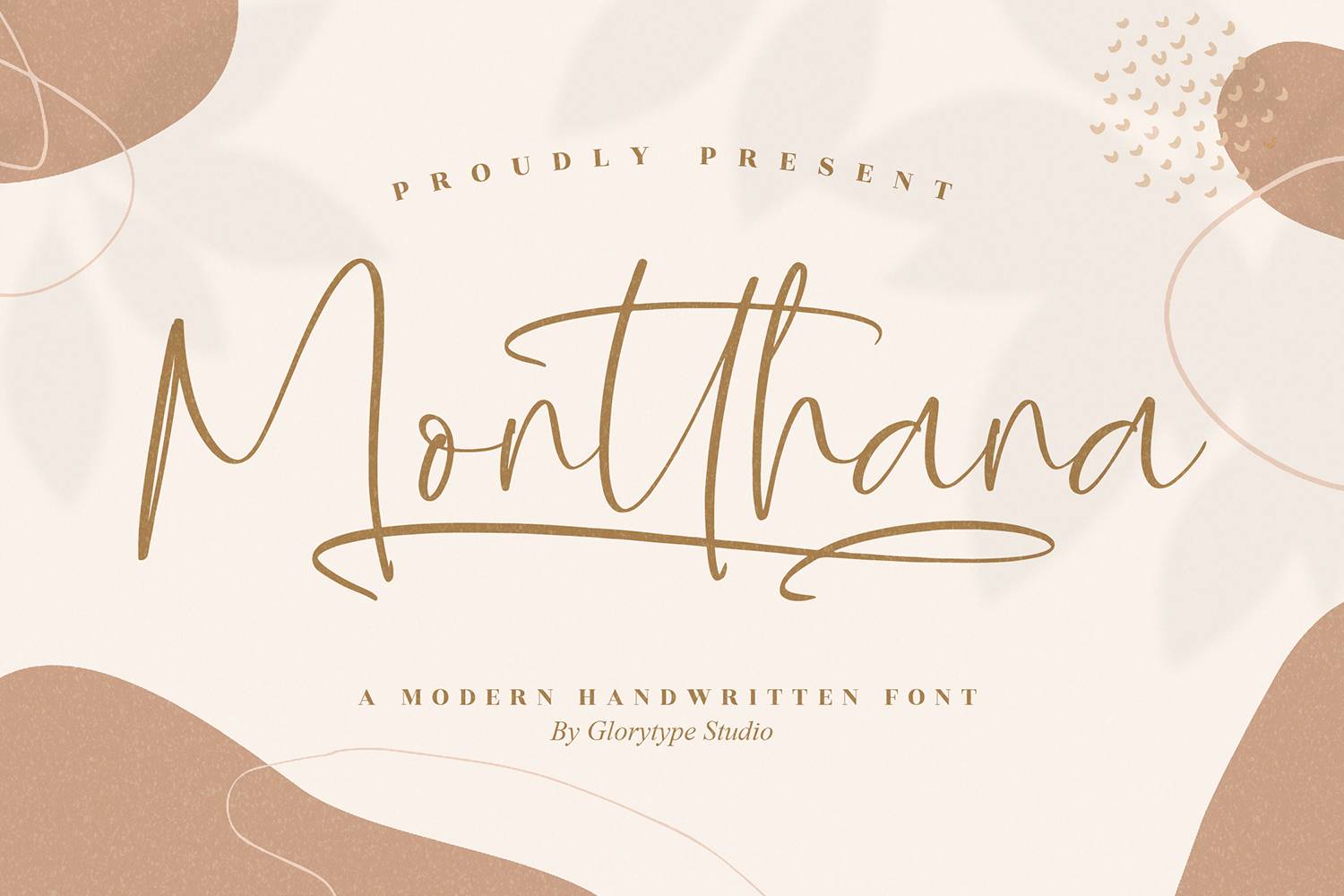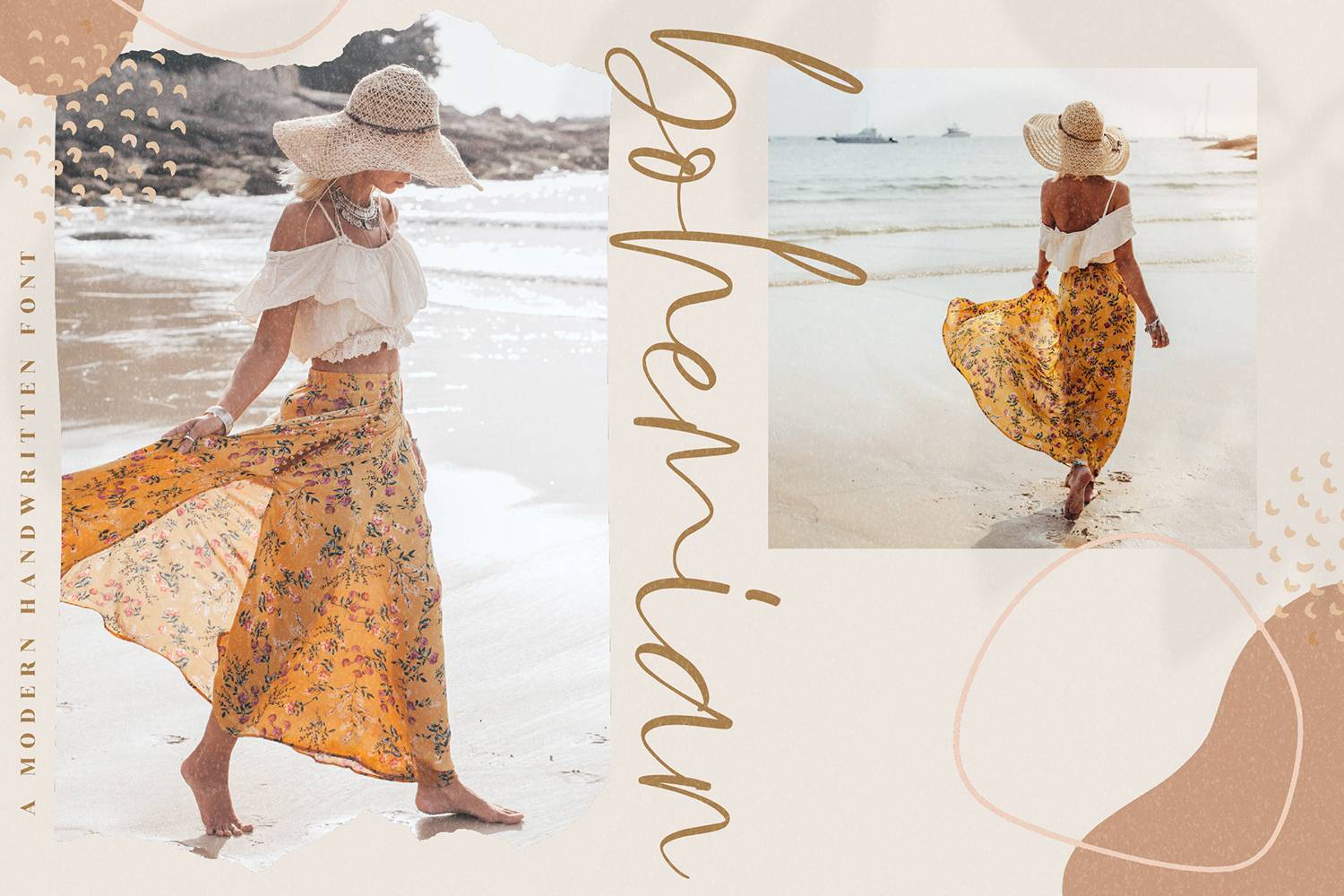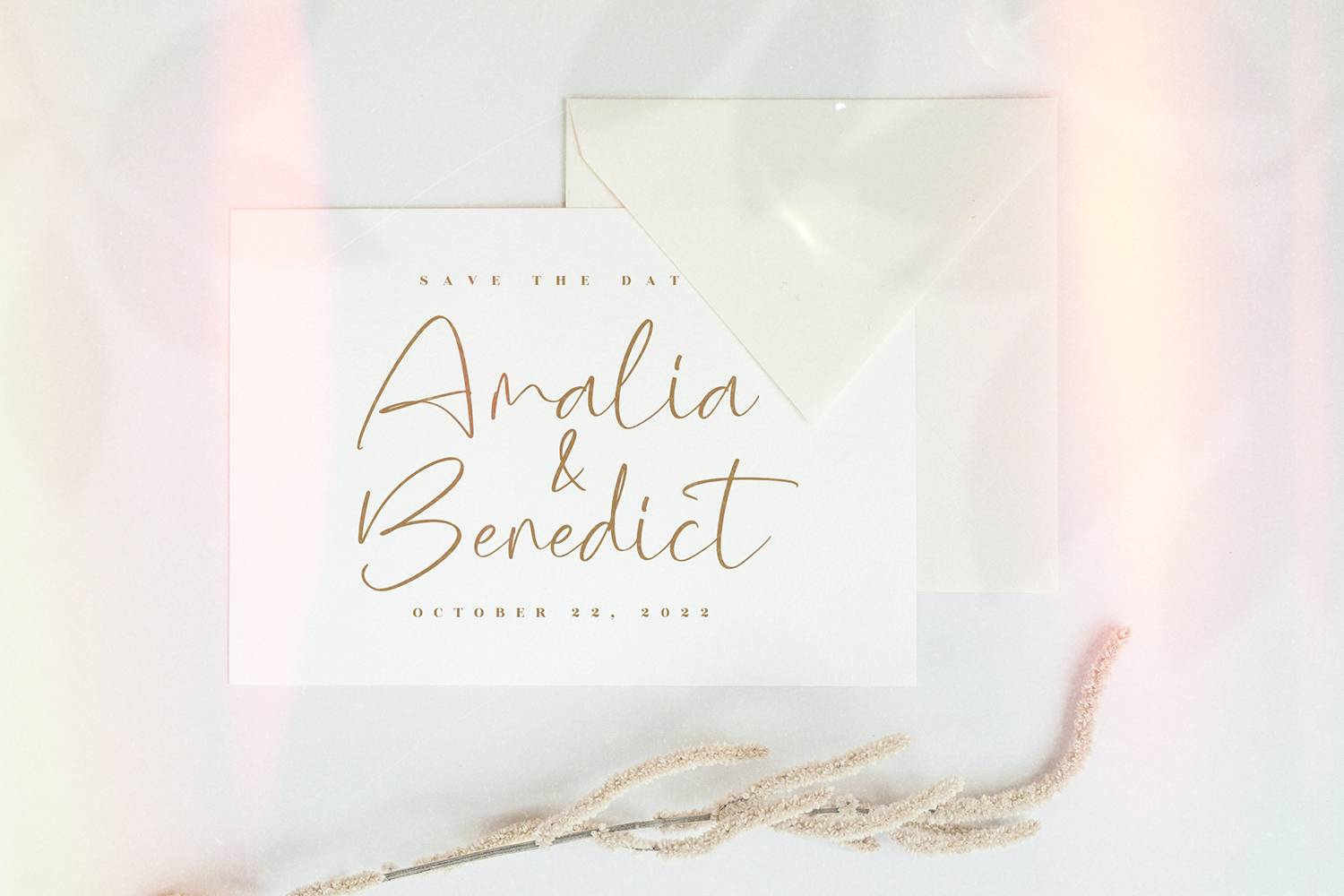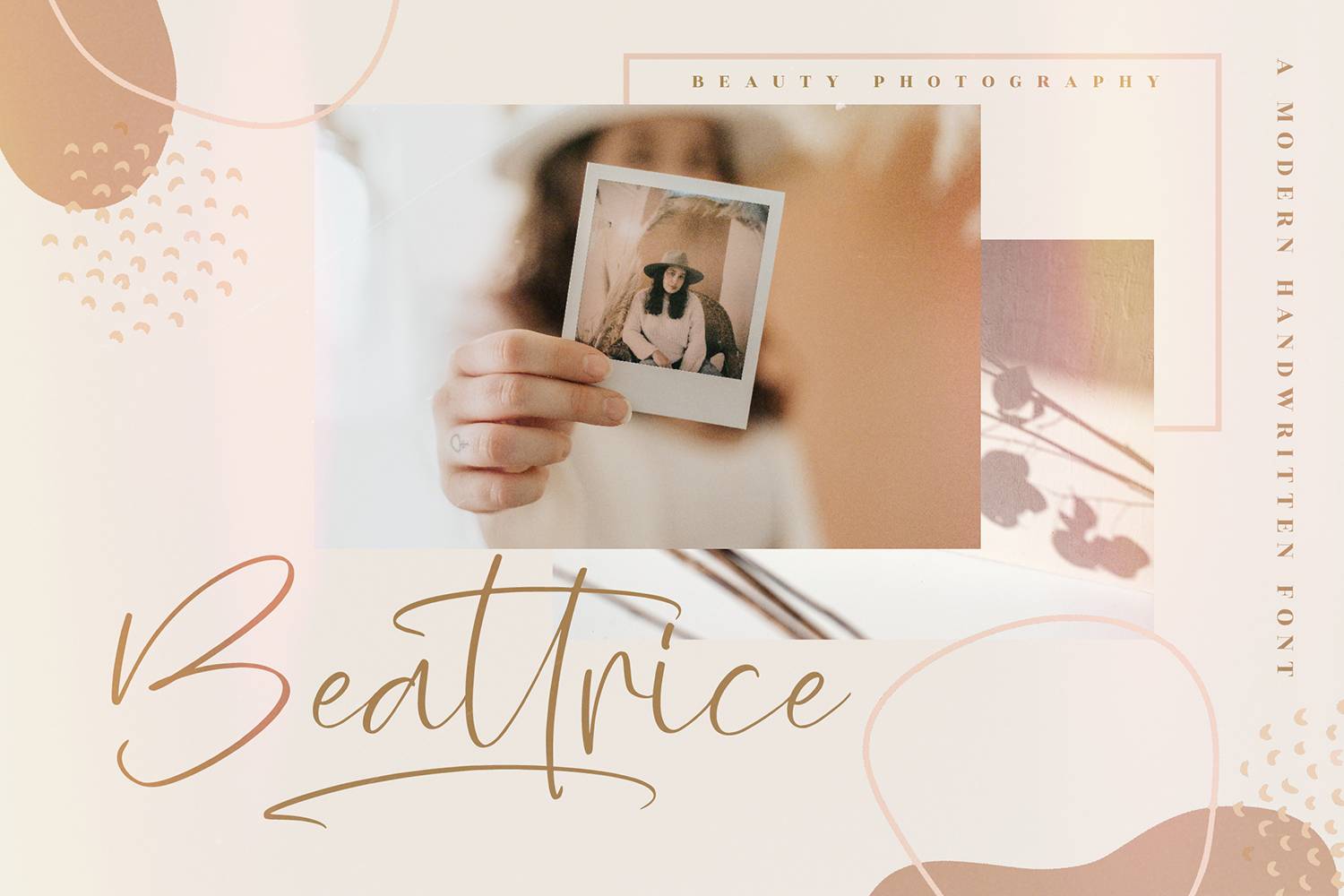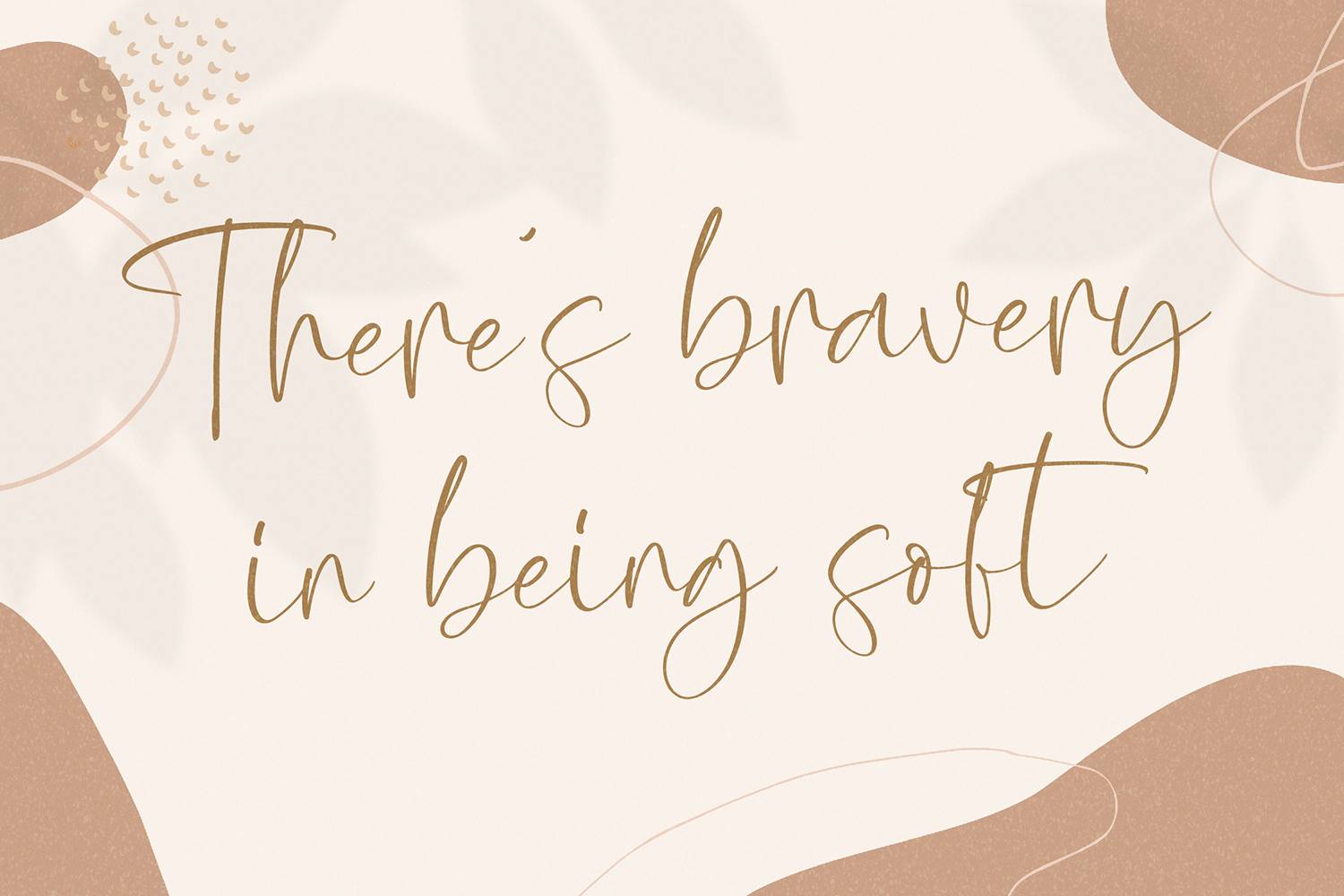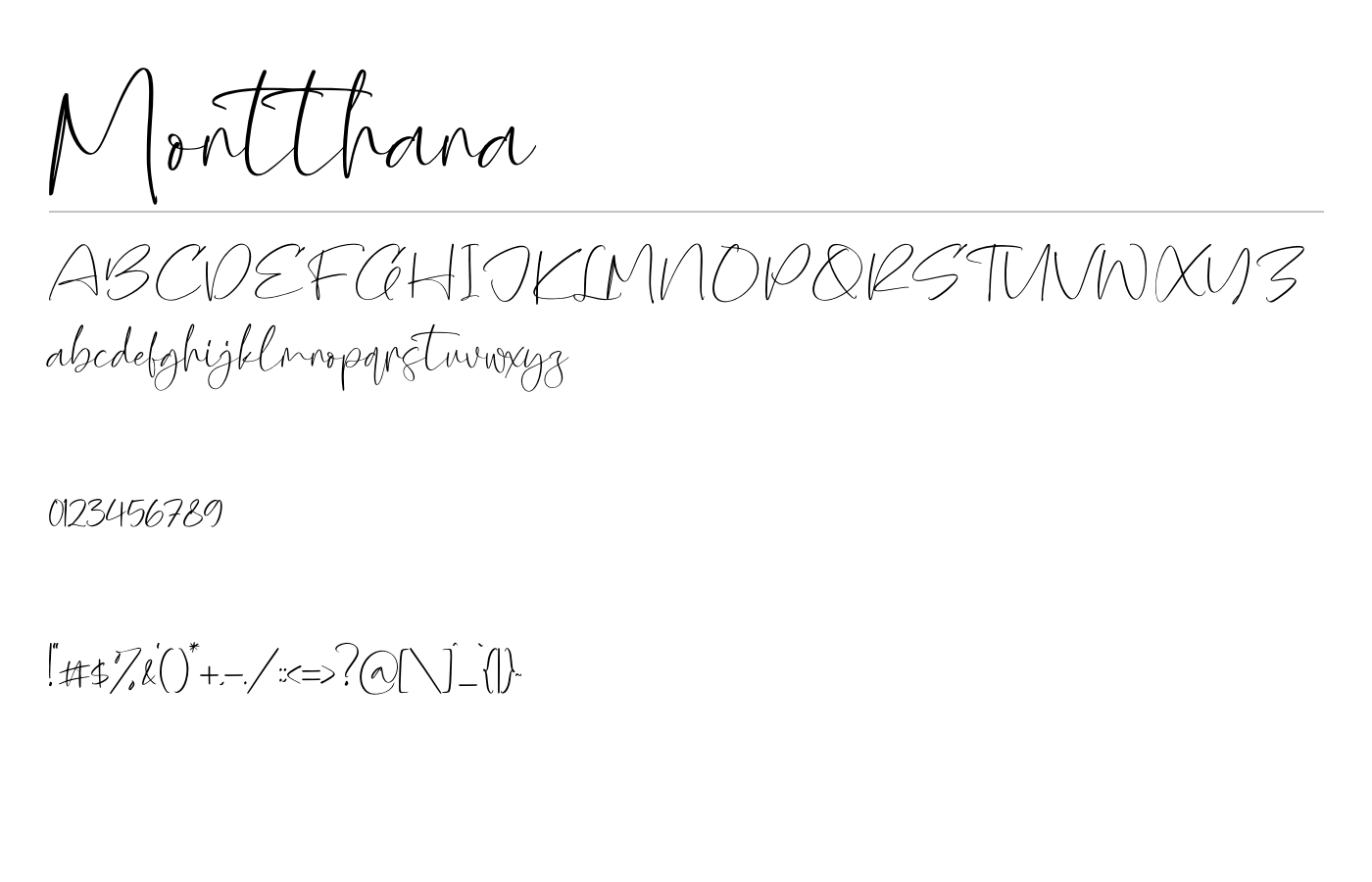
Montthana is a delicate and elegant script font that features thin, flowing strokes with a handwritten, casual feel. Its airy letterforms and natural curves make it perfect for adding a personal, sophisticated touch to invitations, branding, and creative projects where a stylish yet approachable look is desired. This font works beautifully in designs seeking an artistic, feminine, or modern calligraphy vibe.
Montthana Font
About Montthana Font